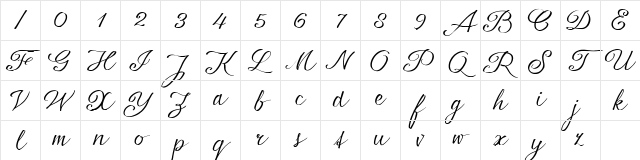
seriousSally_Broad_Trial Bold Free Font
seriousSally_Broad_Trial Bold
Foundry: JOEBOB graphics / JJW van der Ham
Designer: JOEBOB graphics / JJW van der Ham
Design Context for seriousSally_Broad_Trial
seriousSally_Broad_Trial is a composed and adaptable typeface that performs quietly and consistently across a wide range of design contexts. Its bold stroke weight gives it real presence on the page.
Pro Tip: Use seriousSally_Broad_Trial in both headline and body roles to test its range before committing to a single application.